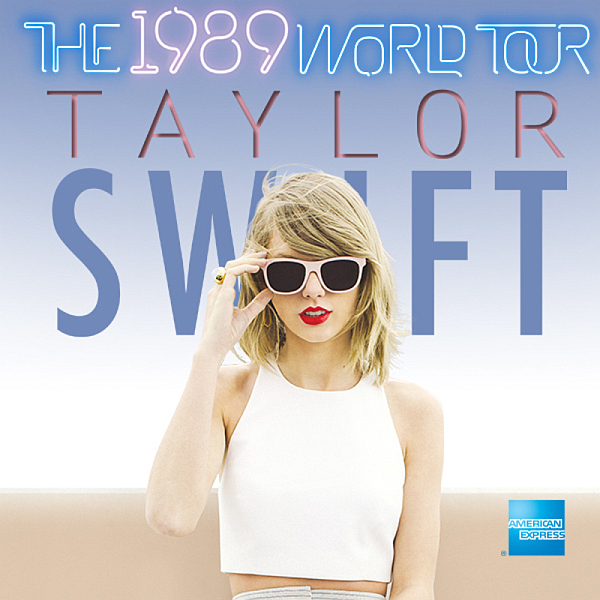
The 1989 World Tour Font
CountryThe 1989 World Tour was Taylor Swift's fifth concert tour, supporting her fifth studio album "1989." The tour began in May 2015 and ended in December 2015, with 85 shows in total across 4 continents.
The tour poster for The 1989 World Tour features three different fonts. The title "The 1989 World Tour" is in The Kabel, designed by German designer Mathias Nösel. The name "Taylor Swift" uses two different san serif fonts: Letter Gothic Regular for "Taylor" and "Swift" is in Futura Condensed Medium.